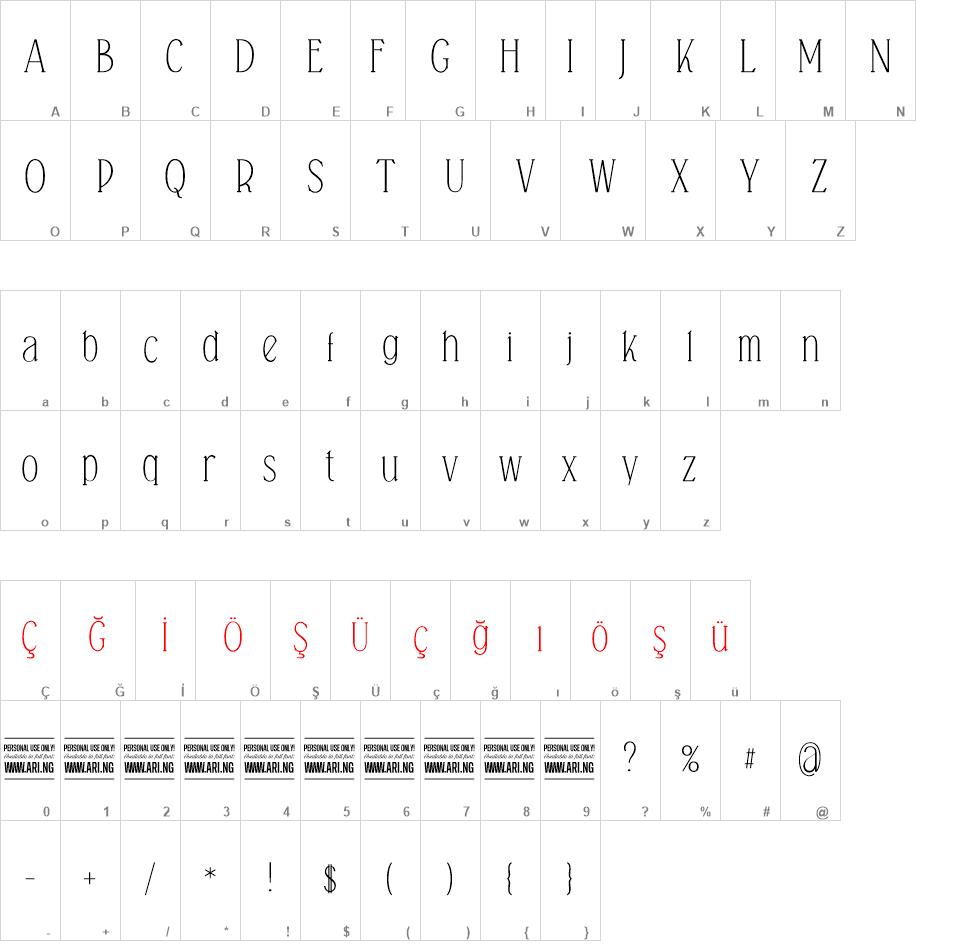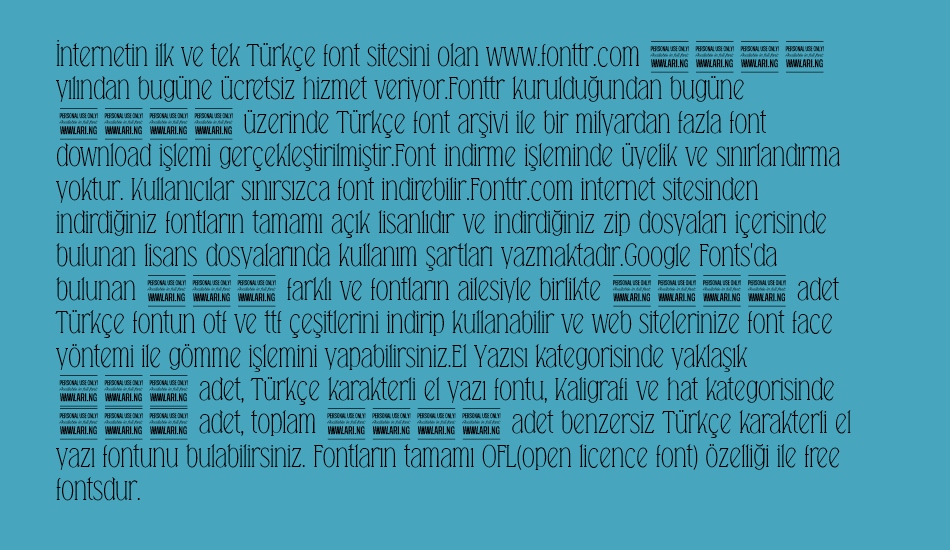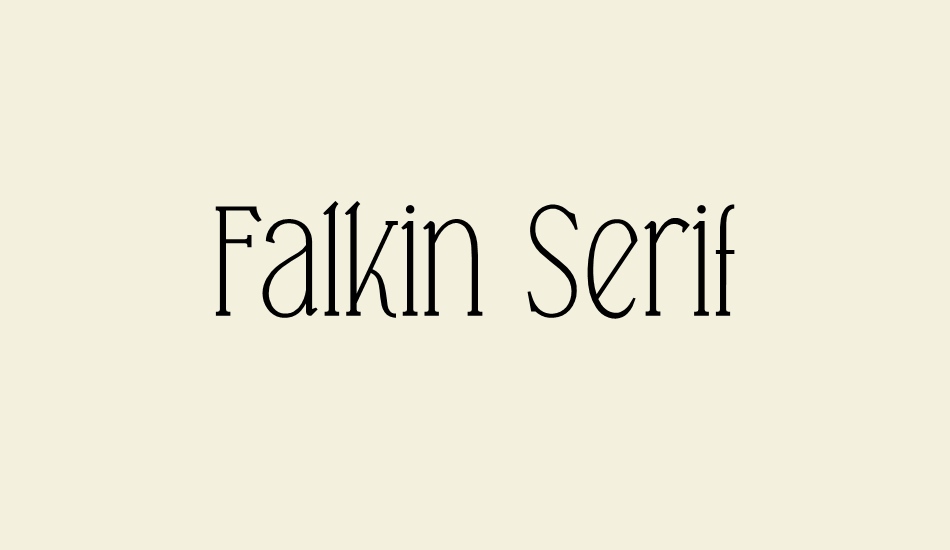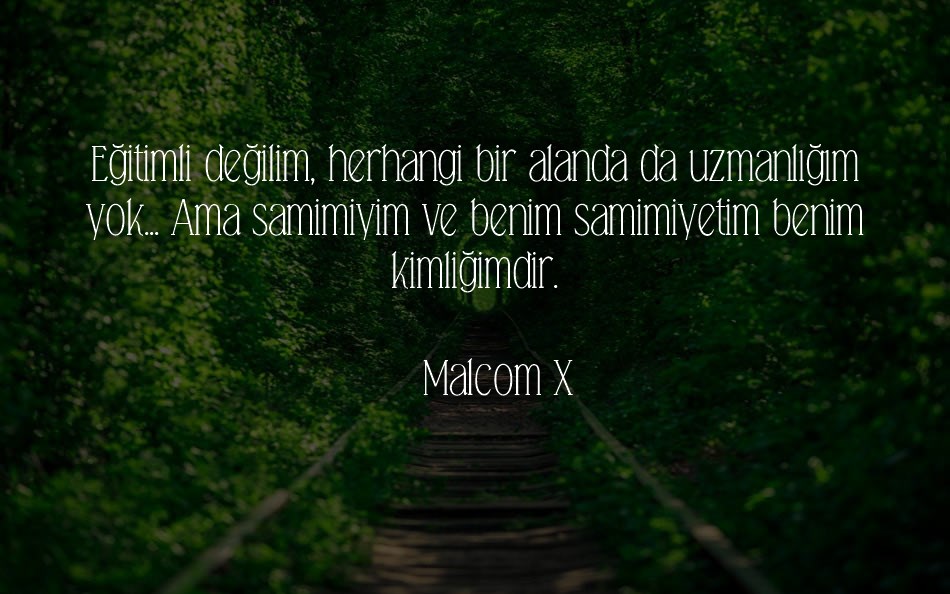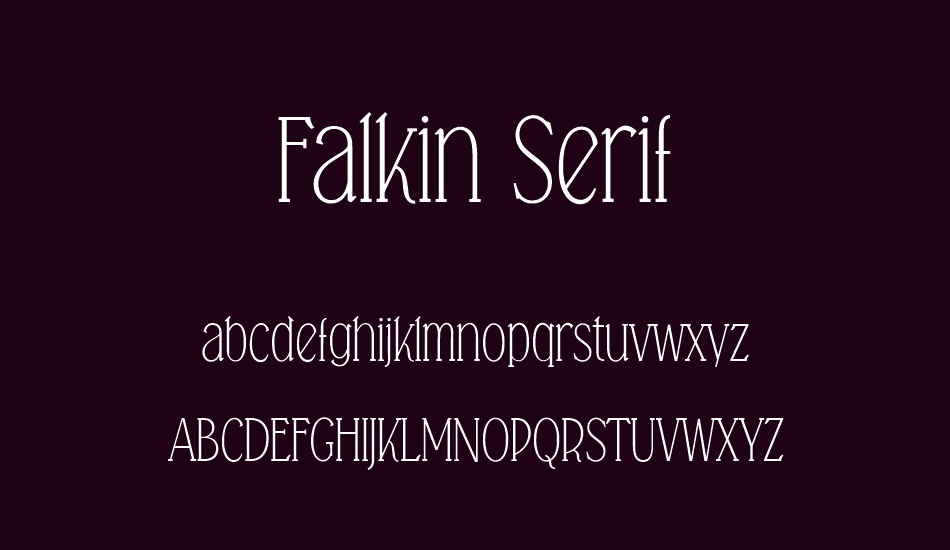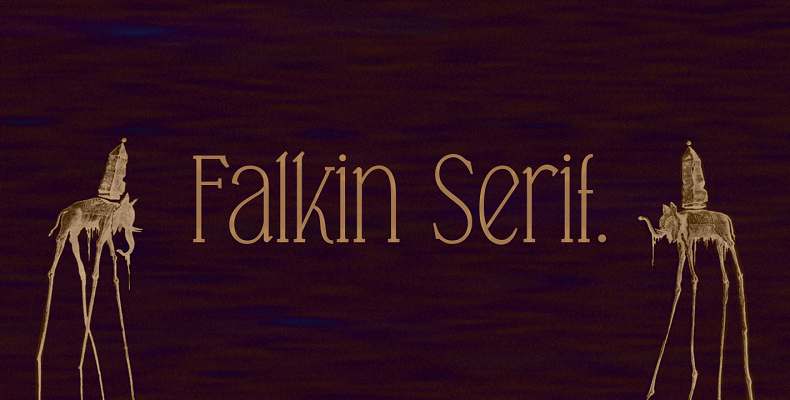
Falkin Serif font
Falkin Serif PERSONAL font
This is a 1900's serif typeface designed by M?ns Greb?ck.
It comes as a thin regular and a thick bold, as well as italic versions of each of the weights.